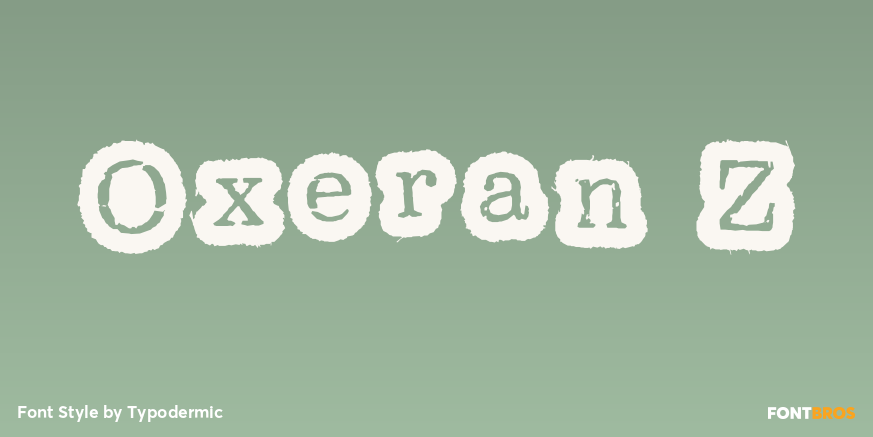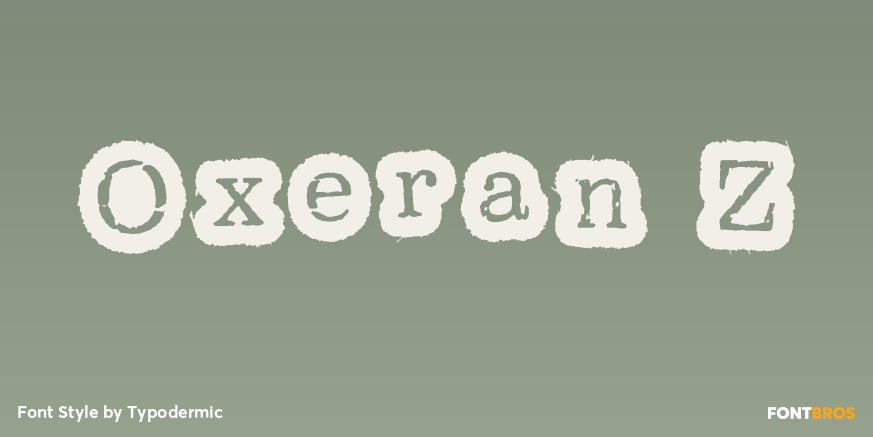
Oxeran Z
Buy NowOxeran Z pushes the family’s Clarendon-based structure into a much darker reverse treatment. Distressed slab-serif letters appear as rough knockouts inside irregular blocks of ink, making the surrounding mass part of every character. The heavy, uneven enclosures give Z a more compressed and forceful texture than ordinary Oxeran while retaining the family’s connection to worn commercial printing.
Use Oxeran Z for compact titles, fighter names, race graphics, workwear labels, boot-box branding, weird-West game locations, and other focal words that need maximum abrasion. Its dense negative shapes are strongest at generous display sizes and against simple backgrounds. Pair it with regular Oxeran for event details, product names, or secondary headings when a complete distressed hierarchy is needed without applying the most extreme treatment everywhere.